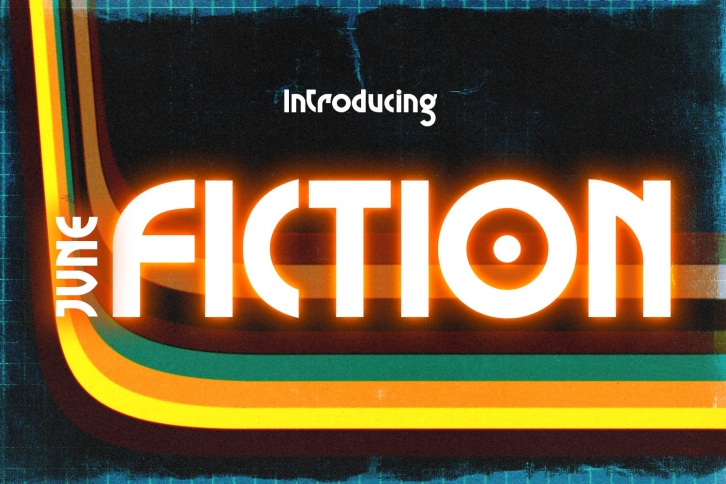
JVNE Fiction is a trendy and unique font with an authentic style. It was designed by Jvne77 and it's a great choice for creative people who need such a font. It was released on July 7, 2018 and the file size is 4.85 MB. JVNE Fiction will add an organic vibe to any design idea!